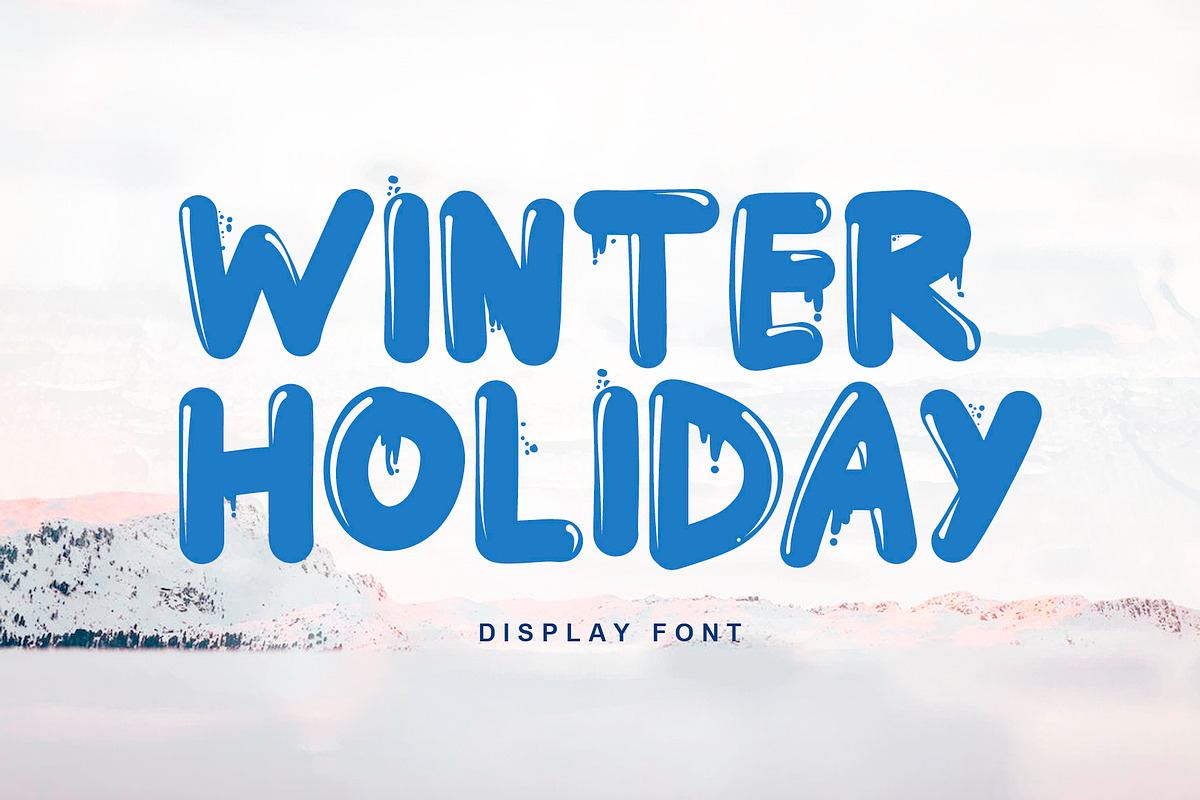
Winter Holiday - Playful Font Free Download
Please note, to use this font for commercial purposes, you must purchase the full version. Winter Holiday is a fun and festive playful font that adds a joyful, holiday spirit to any design. With its whimsical letterforms and cheerful vibe, this font is perfect for Christmas cards, party invitations, logos, and holiday-themed branding. Whether you're creating designs for a winter event, a playful brand, or festive promotional materials, Winter Holiday brings a lighthearted and charming touch to your work. Test it out and enjoy free download access for personal use. Experience the festive fun of Winter Holiday - Playful Font Free Download before purchasing the commercial license. Add a touch of holiday joy to your designs with Winter Holiday.